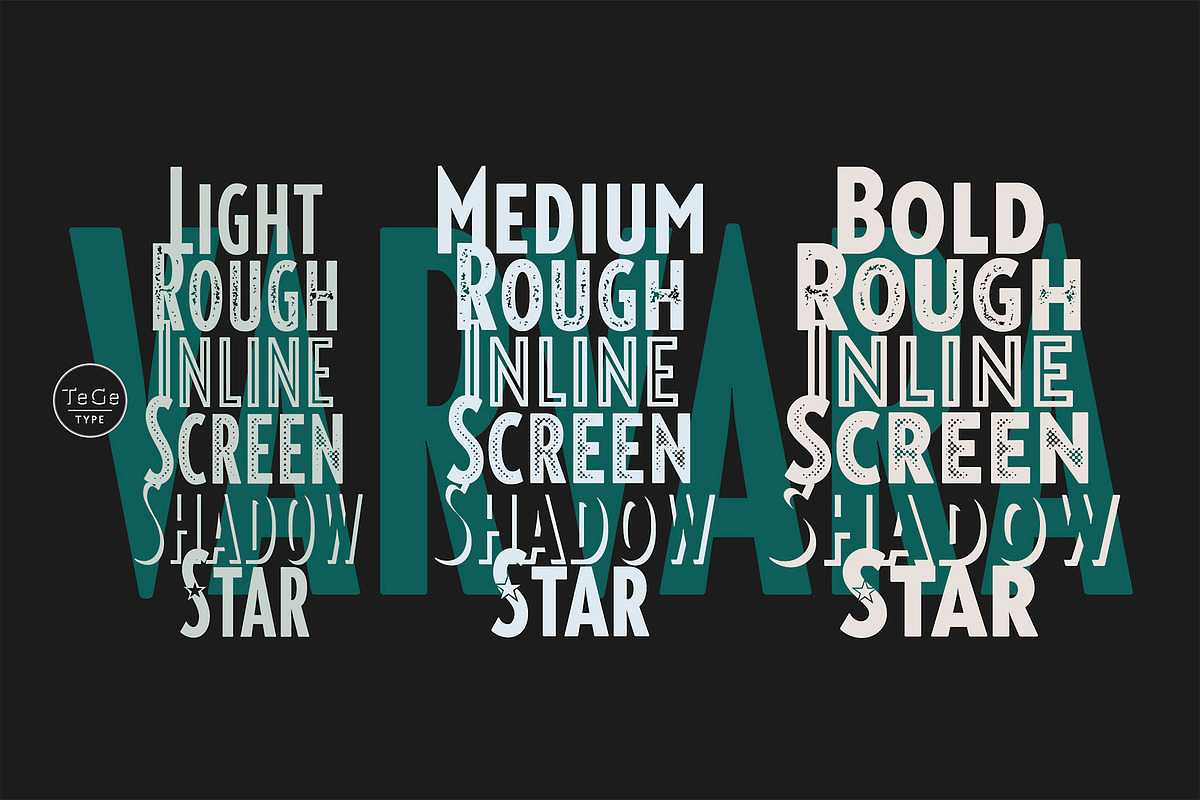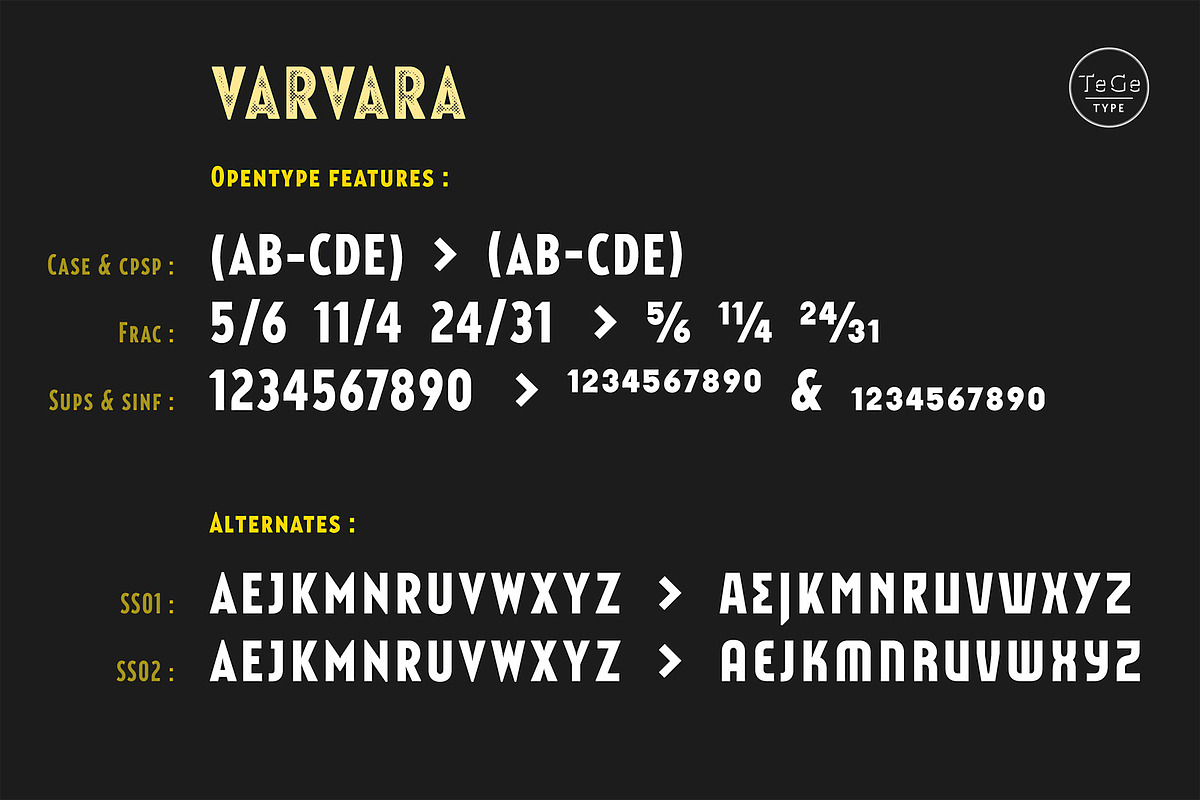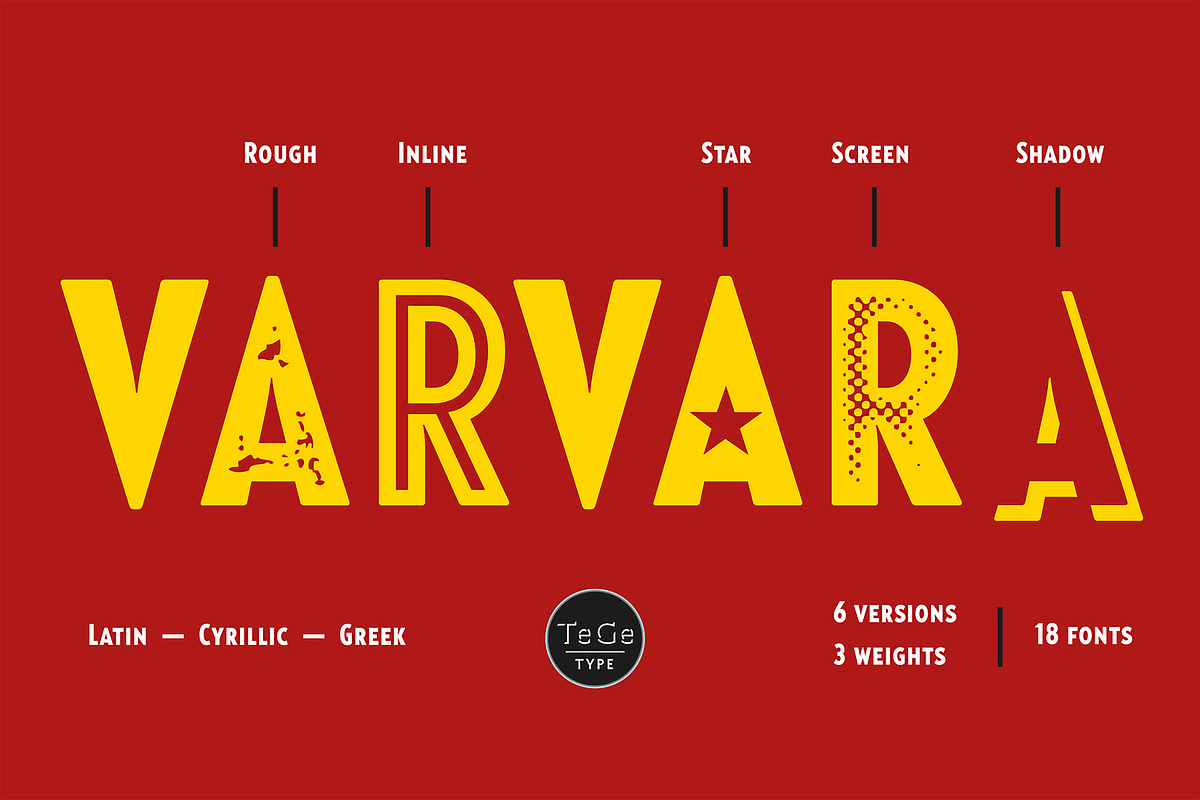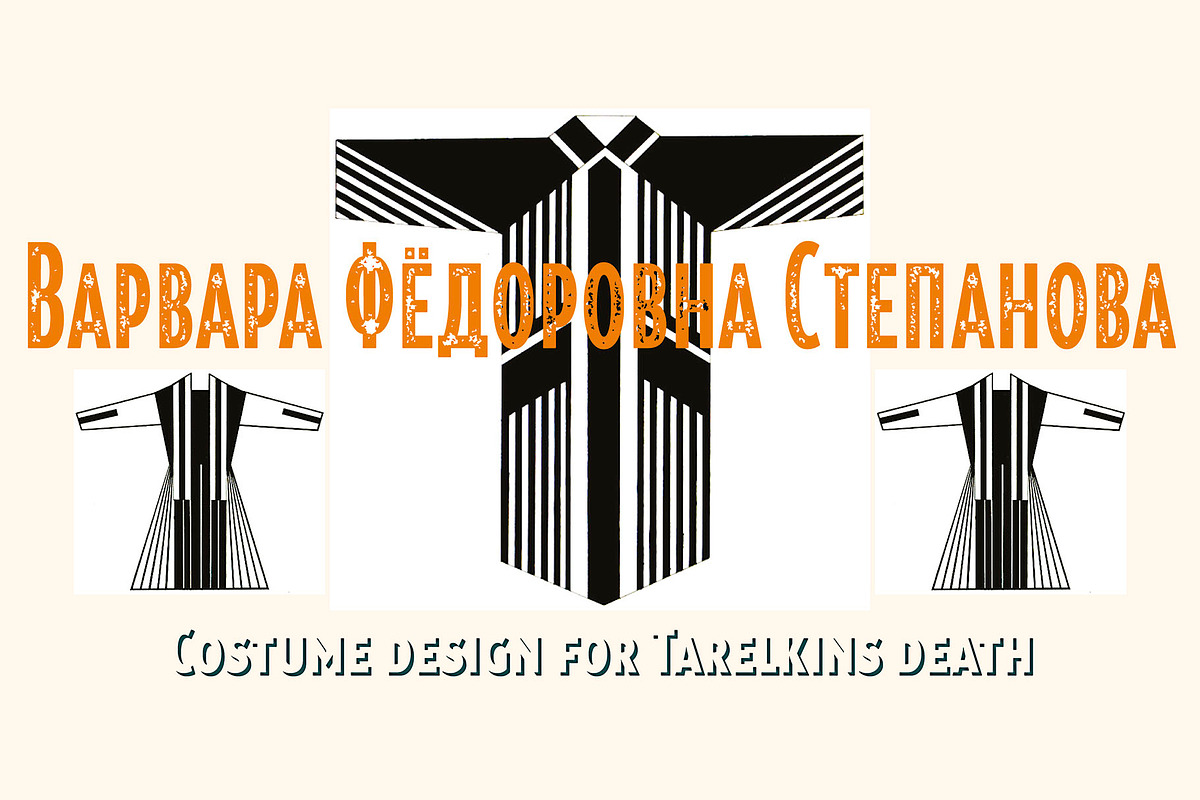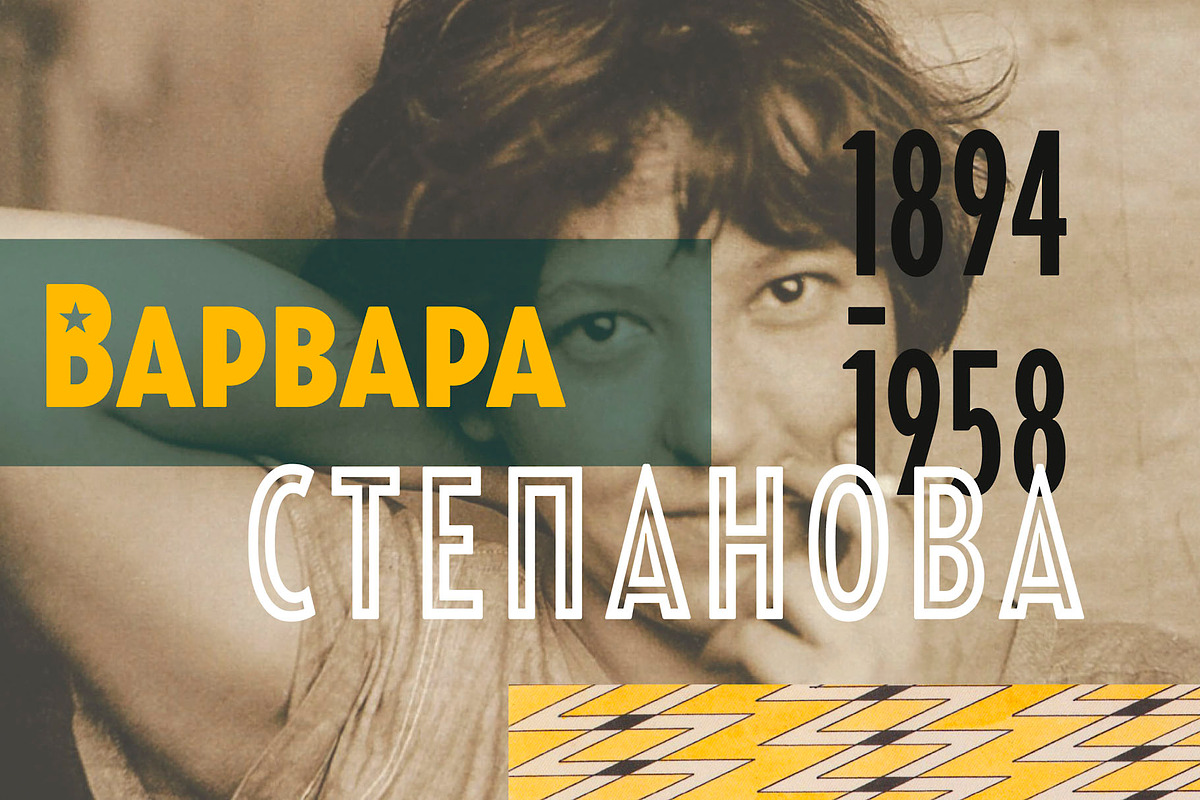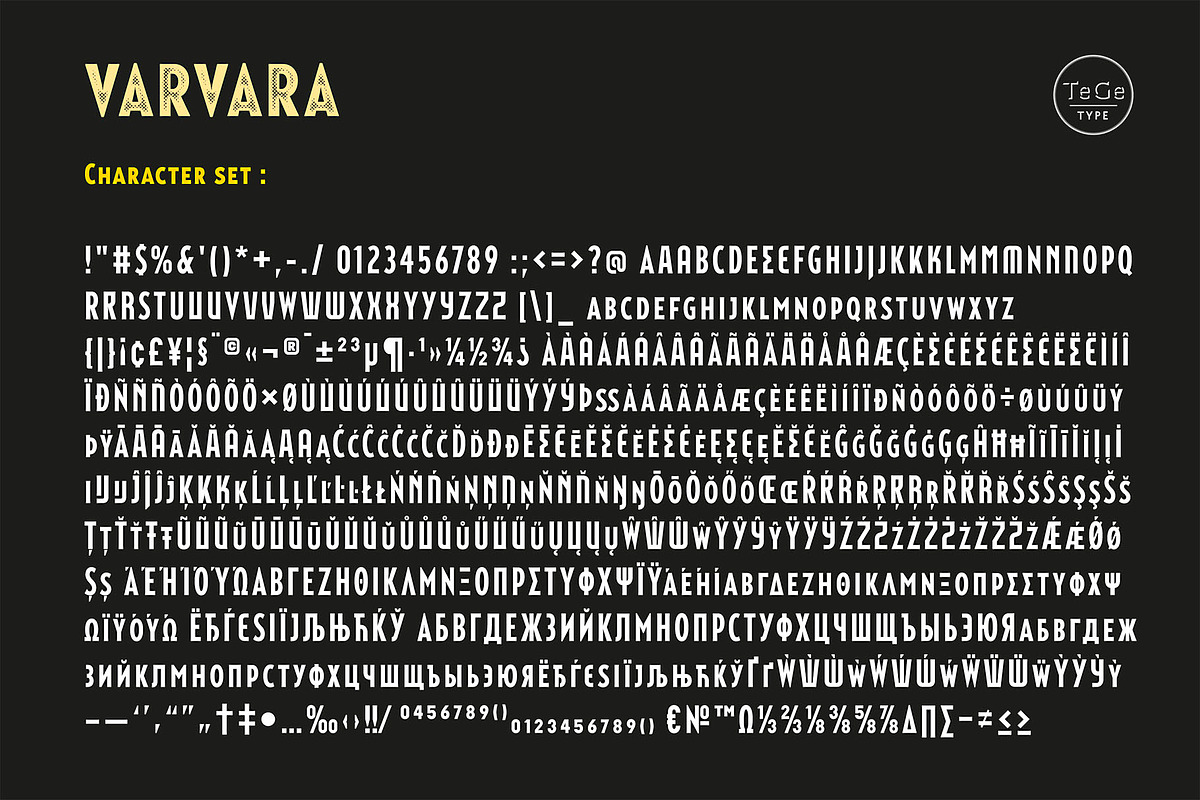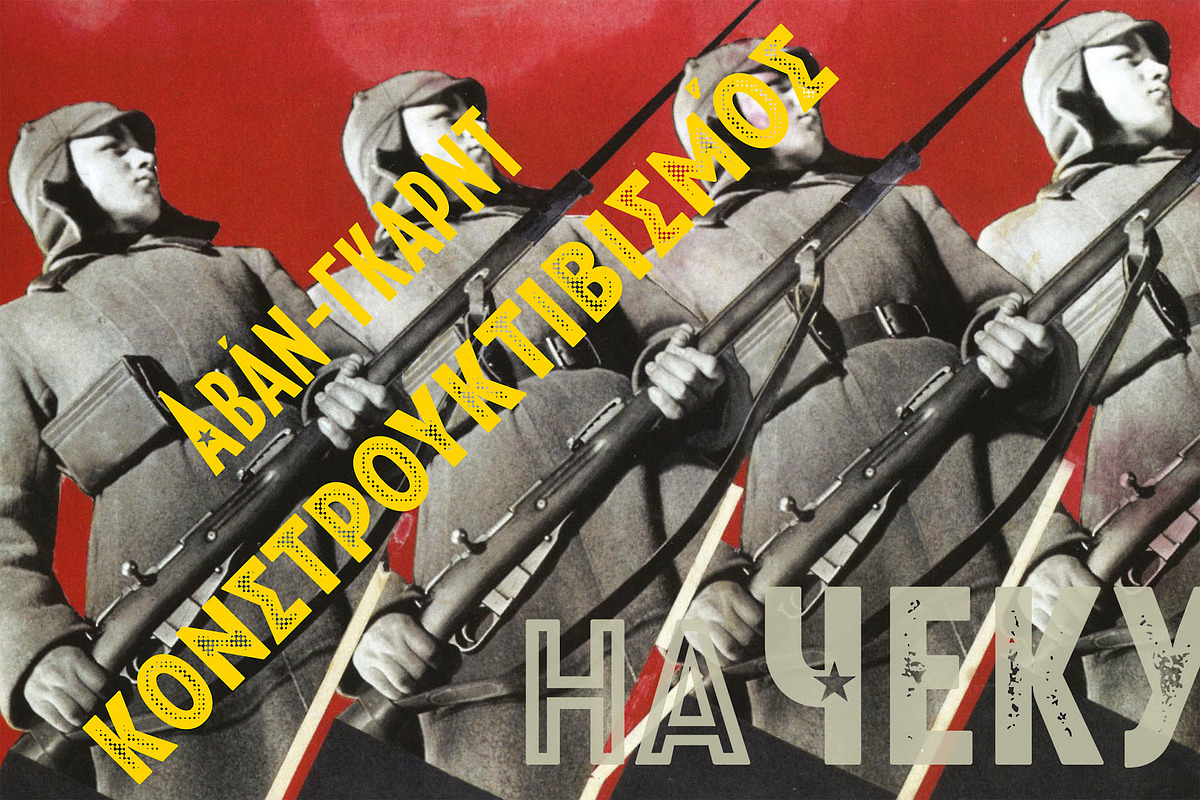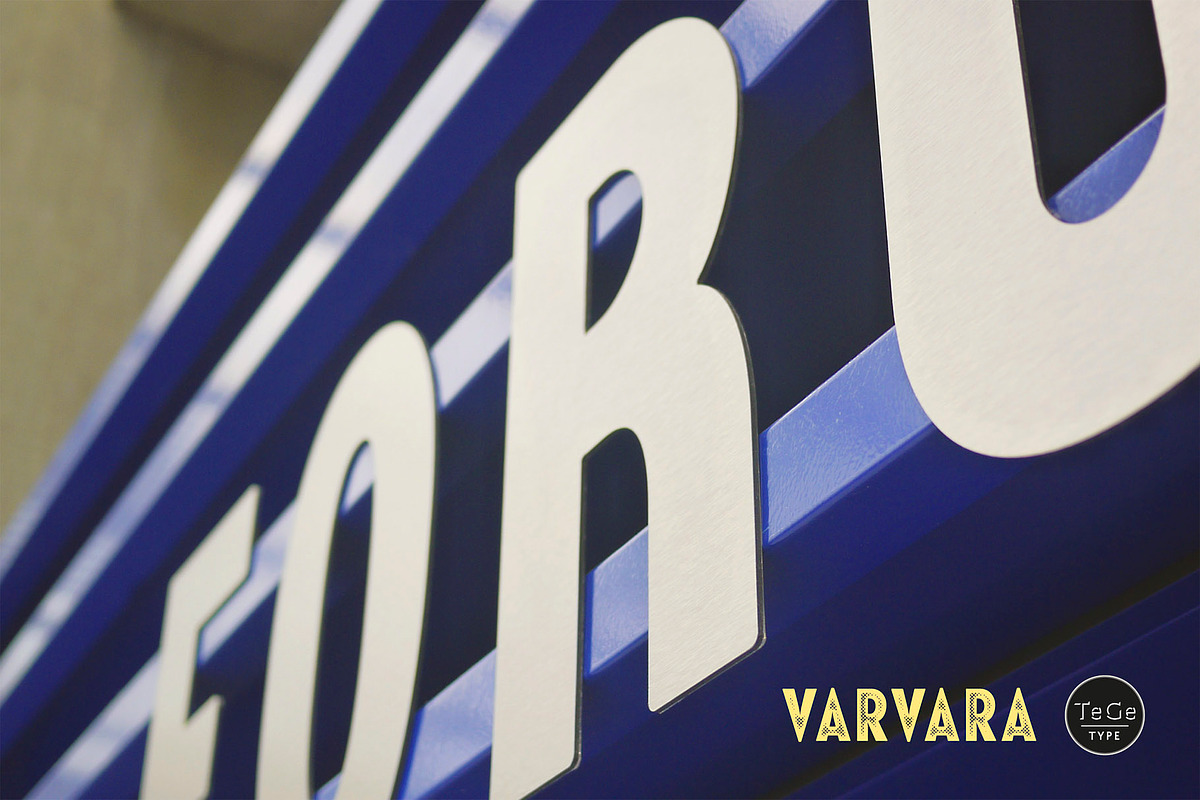
Varvara
Varvara is a new display typefaces family create as a tribute to the work of Barbara Stepanova (1894-1958). Varvara family has light, medium and bold weights in 6 differents versions (normal, rough, screen, inline, shadow and star), all with alternates letters. All versions are provided in latin, cyrillic and greek alphabets. It can be use for text as for titling applications.